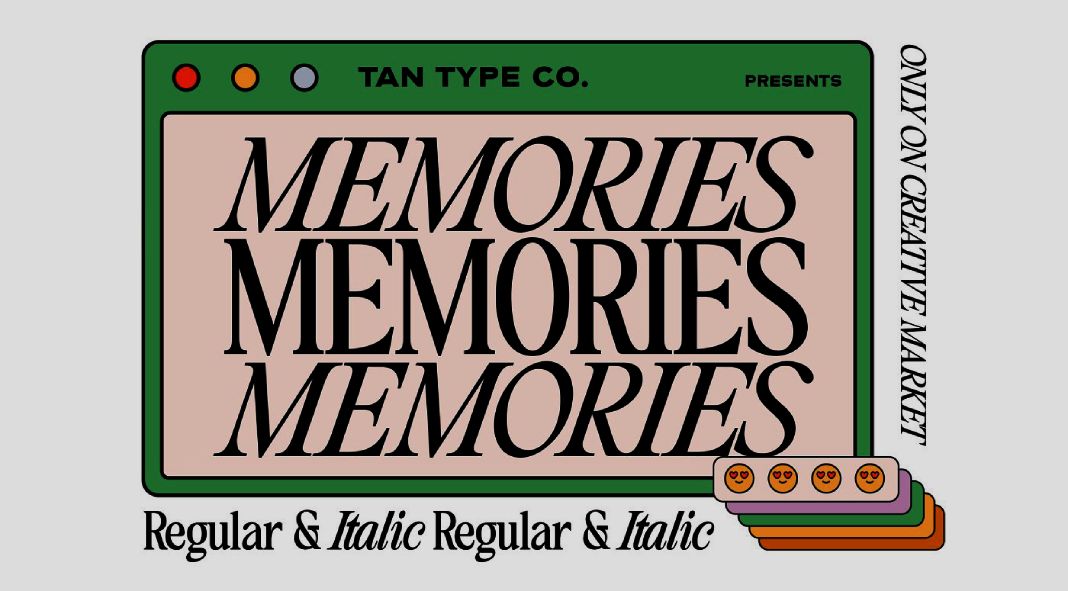
Say hello to TAN MEMORIES, a serif font with tight kerning.
In the vast world of typography, every designer knows the power of a well-crafted typeface. Fonts have the ability to convey emotions, set the tone, and elevate the overall design of a project. And when it comes to selecting the perfect font, TanType, a renowned type foundry, never fails to deliver. In 2022, they introduced us to TAN MEMORIES, a serif font that captivates with its impeccable design.
TAN MEMORIES is a typeface that embraces subtlety and playfulness. Its distinguishing characteristic is the tight kerning, which adds a sense of sophistication and refinement to any text. Kerning refers to the spacing between individual characters in a font, and in the case of TAN MEMORIES, it is meticulously adjusted to create a harmonious flow and a visually pleasing aesthetic.
One of the remarkable qualities of TAN MEMORIES is its versatility. While it is designed to complement TanType’s display typefaces seamlessly, it also stands strong as a standalone font when you need a more understated mood. This adaptability makes TAN MEMORIES an excellent choice for a wide range of design projects, from branding and editorial design to websites and packaging.
The designers at TanType poured their expertise into every curve and line of TAN MEMORIES, ensuring that it exudes a timeless appeal. The serifs, those delicate finishing touches at the ends of each stroke, give the font a classic and elegant look. Whether used in headings, subheadings, or body text, TAN MEMORIES adds a touch of refinement and playfulness that catches the eye and elevates the overall design.
When it comes to legibility, TAN MEMORIES shines brightly. The carefully crafted letterforms make reading effortless, even in smaller sizes. Each character is balanced and well-proportioned, contributing to the font’s overall harmony. Whether you’re designing a book, a magazine spread, or a website interface, TAN MEMORIES ensures that your content remains clear and easy to read.
The subtler mood of TAN MEMORIES makes it ideal for projects that require a touch of sophistication without overwhelming the visual composition. It gracefully blends with other fonts, creating a harmonious relationship that enhances the overall aesthetic. When used alongside TanType’s display typefaces, TAN MEMORIES brings balance and coherence, elevating the entire typographic palette of your design.
As with all typefaces from TanType, TAN MEMORIES is meticulously designed and thoroughly tested to ensure the highest quality. The font is available in a regular style and true italics, allowing for creative flexibility and enabling you to experiment with different styles and hierarchies in your design. With a wide range of glyphs and extensive language support, TAN MEMORIES is truly a global typeface, ready to be used in projects that span continents.
With its timeless appeal, exceptional legibility, and adaptability, TAN MEMORIES is a valuable addition to any designer’s toolkit. So, why not give it a try and let your typography evoke beautiful memories?